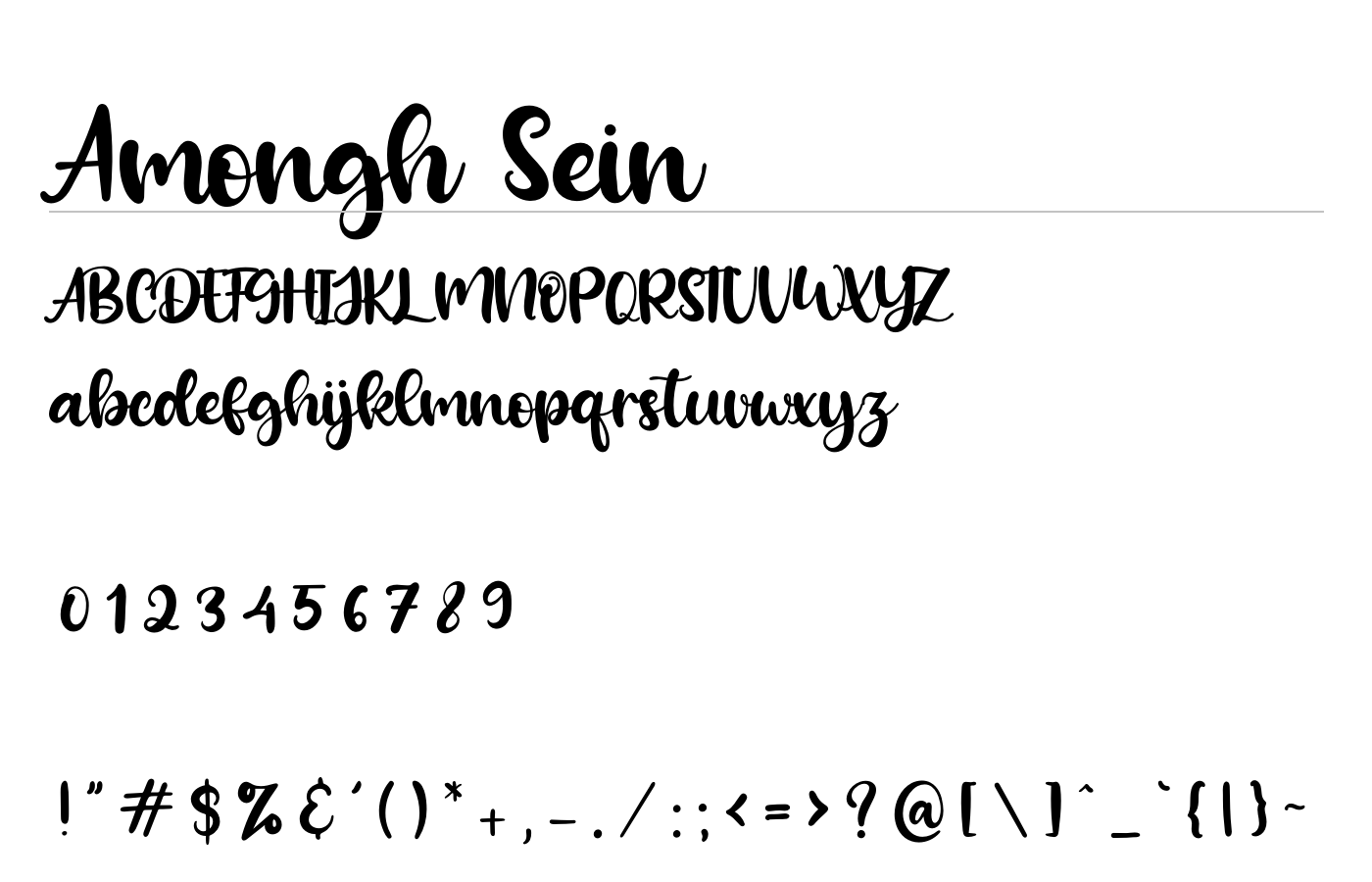
Amongh Sein is a playful and lively script font with a hand-drawn feel, featuring bouncy letterforms and fluid, connected strokes that convey friendliness and creativity. Its medium weight and casual style make it ideal for branding, invitations, and creative projects where a warm, approachable vibe is desired. This font works well in headlines or short texts where personality and charm are key.